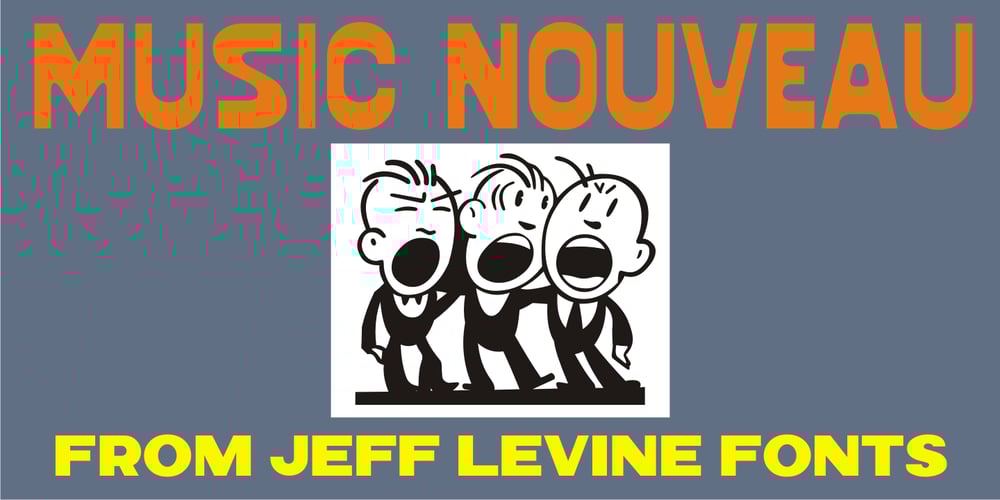
Music Nouveau JNL Font Family was designed by Jeff Levine and published by Jeff Levine. Music Nouveau JNL contains 1 styles and family package options. The interesting hand lettered sans design of Music Nouveau JNL was found as the title of a vintage piece of early 20th Century sheet music for a song written by famed composer Irving Berlin and called “They Were All Out of Step but Jim”. Judging by the cover art, it was a novelty song about a soldier.